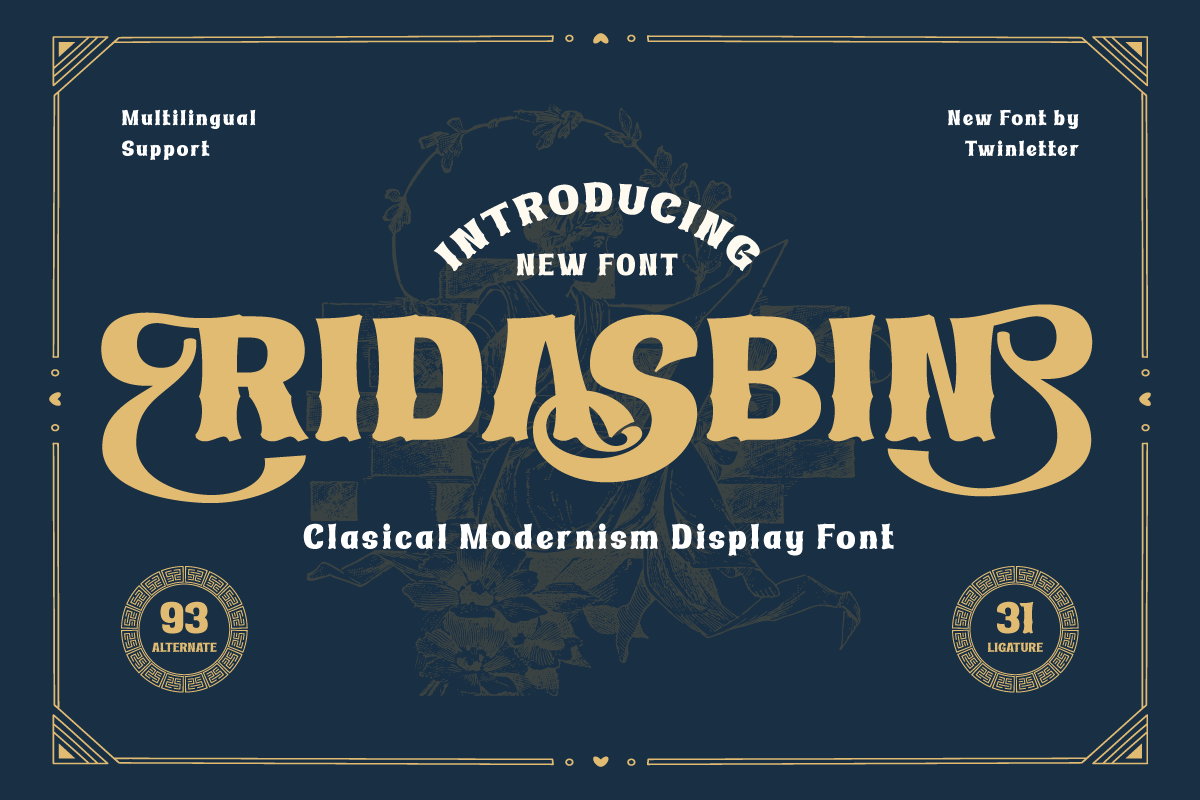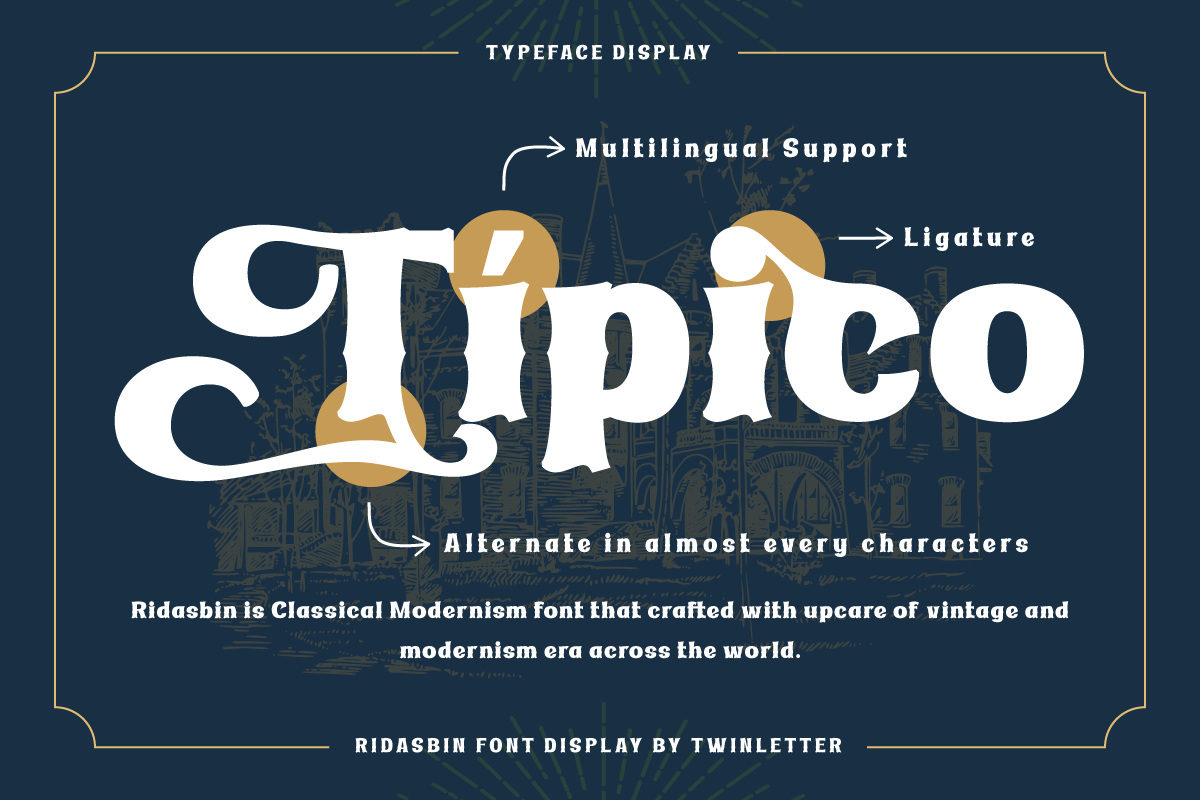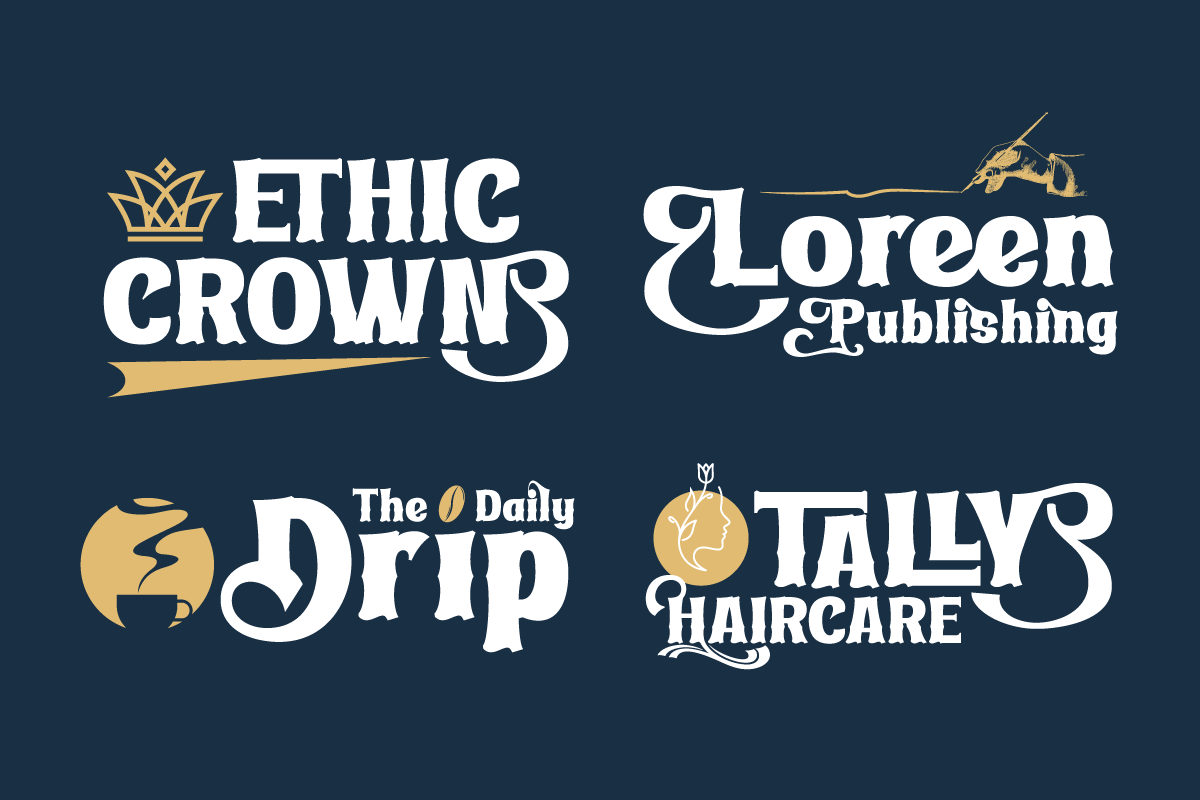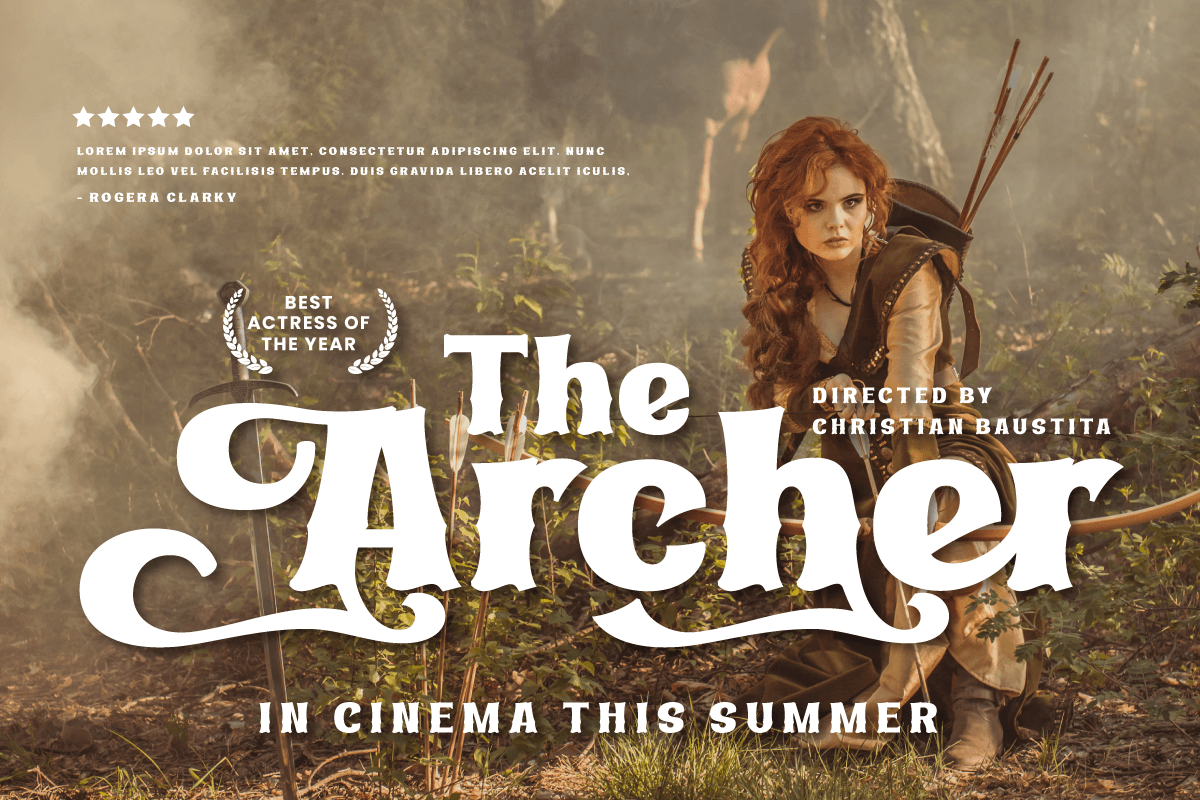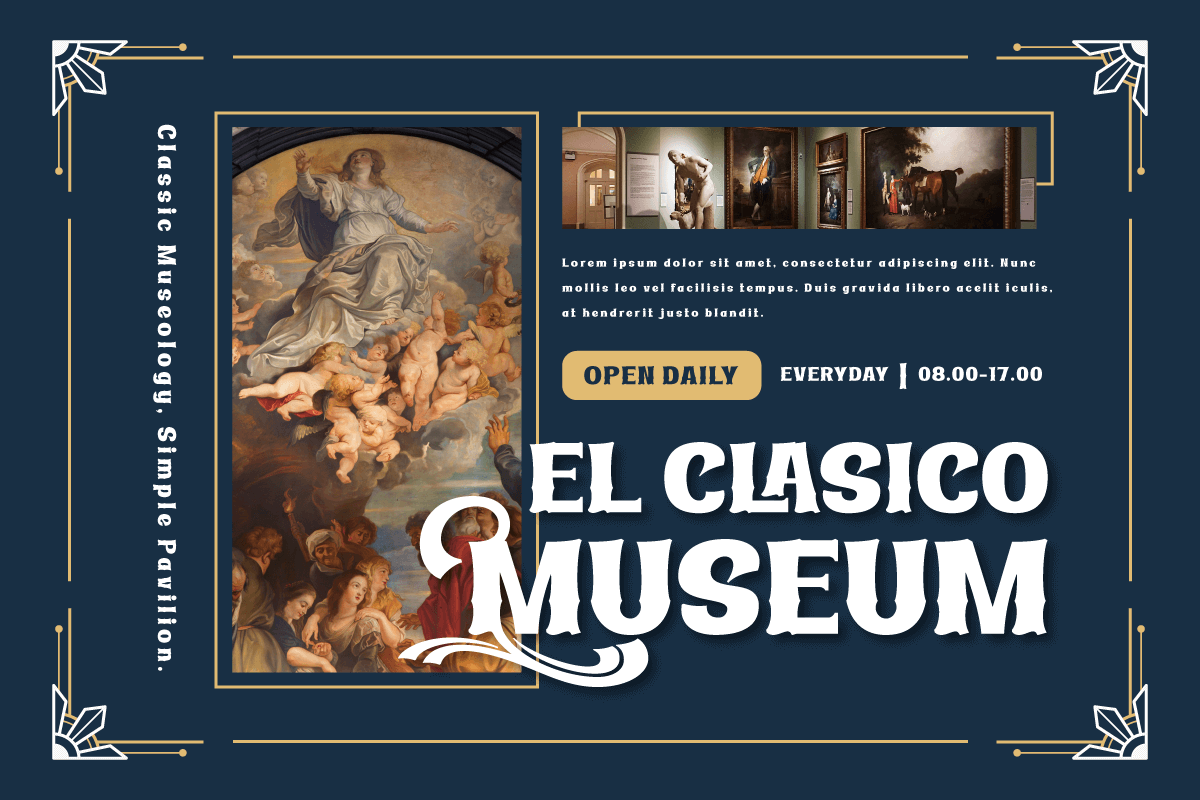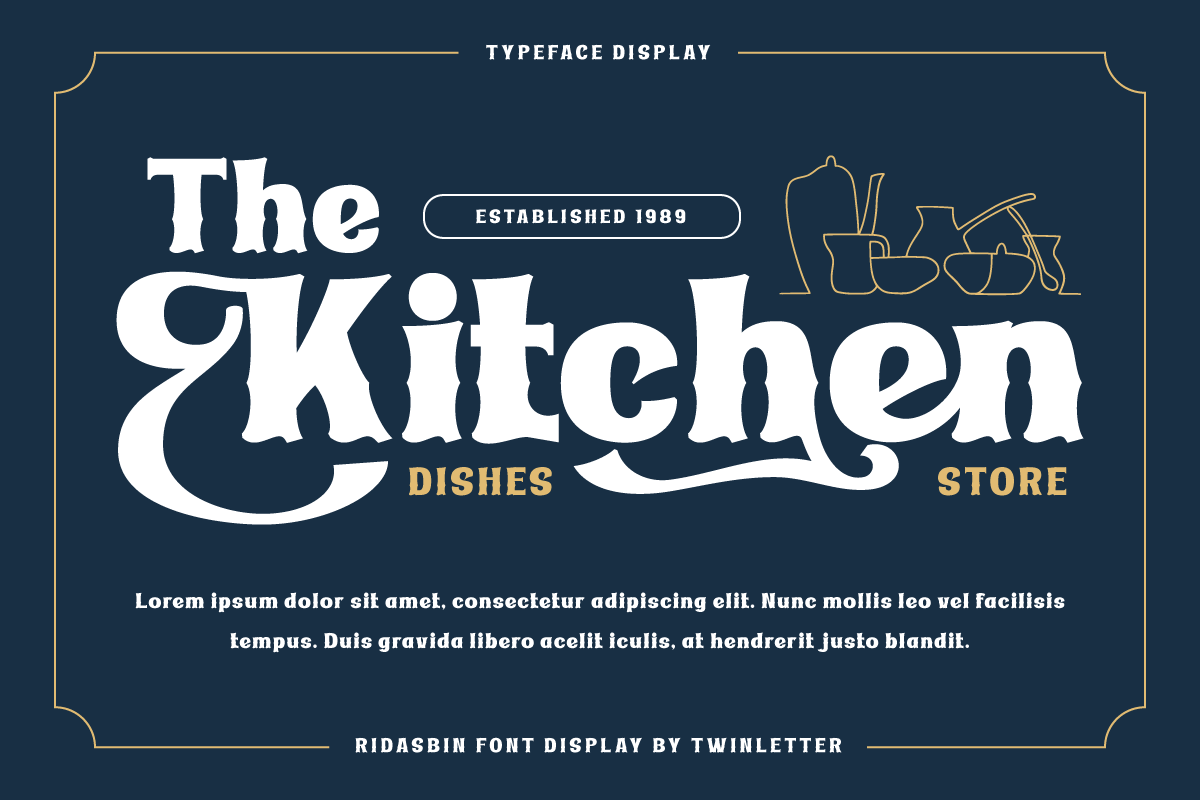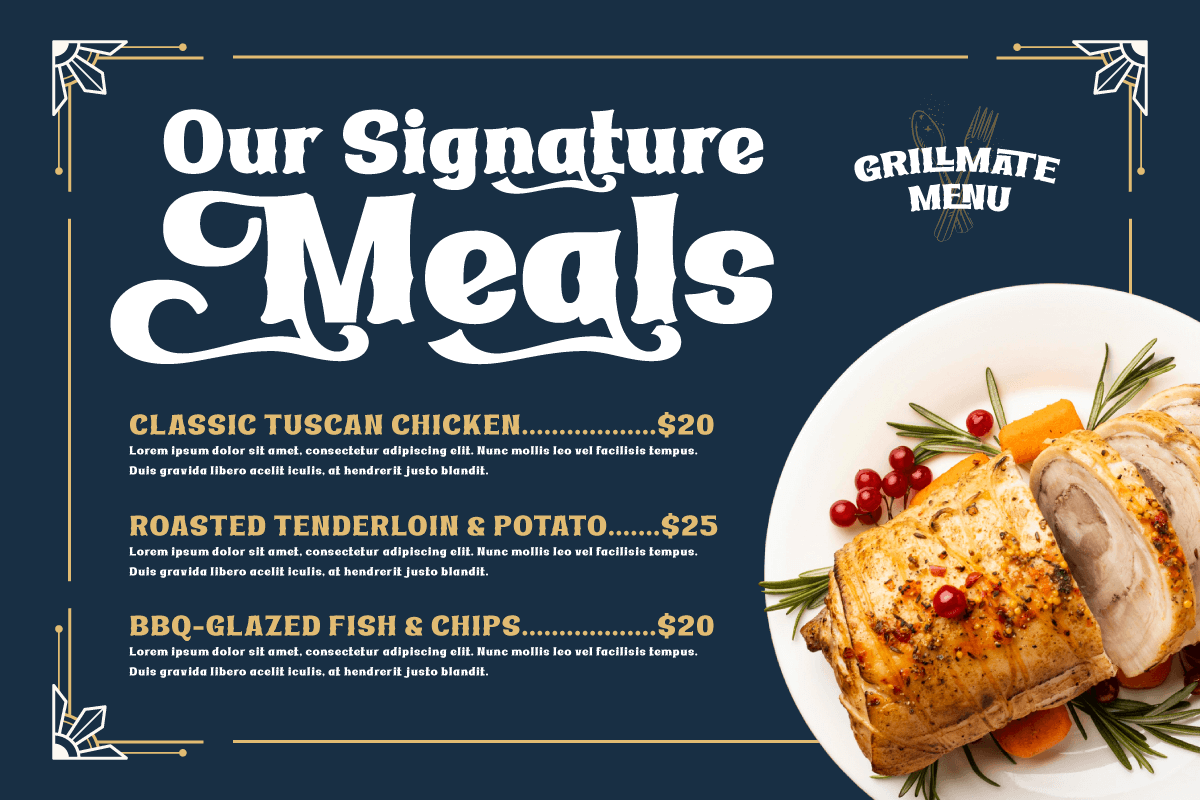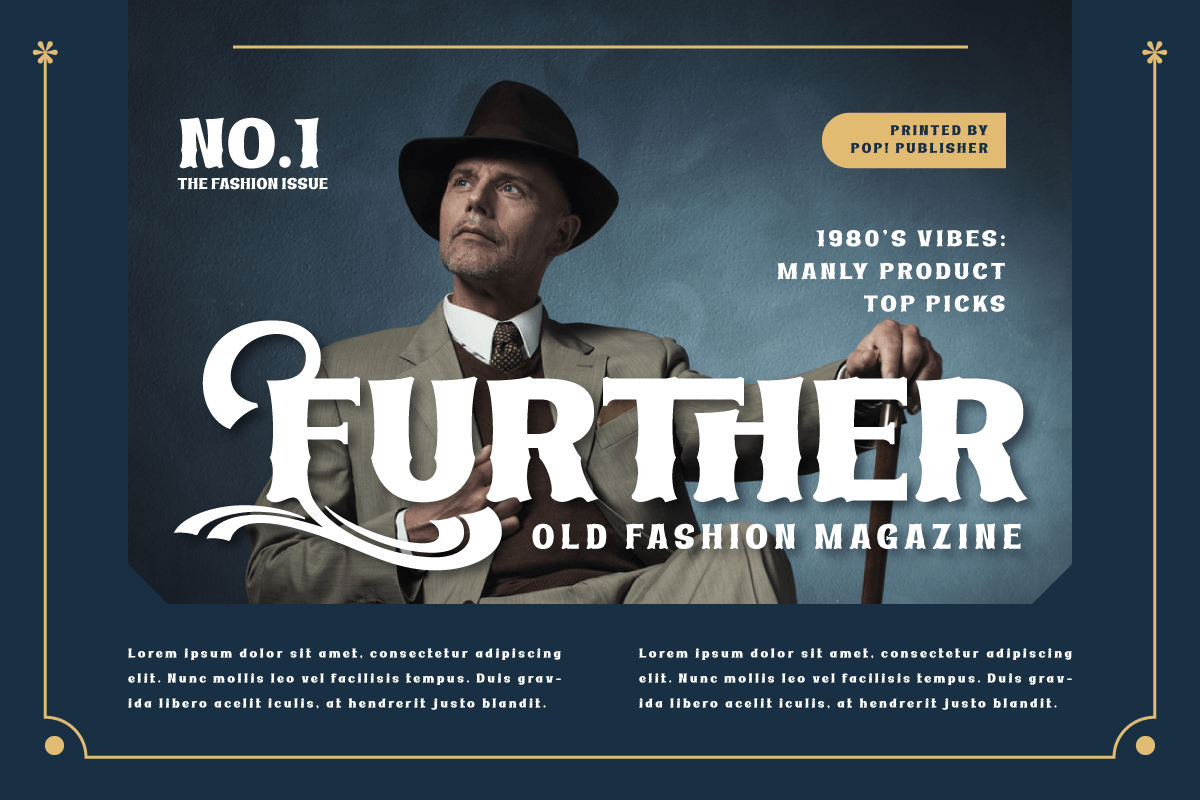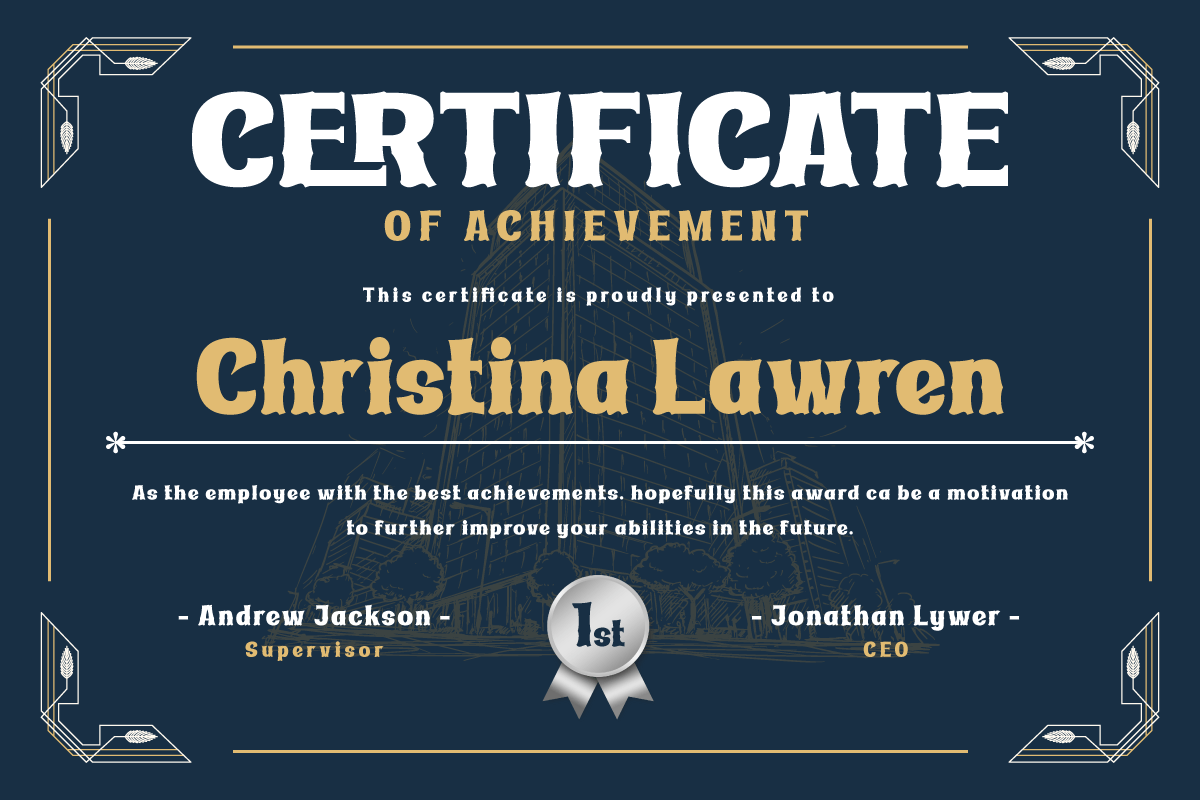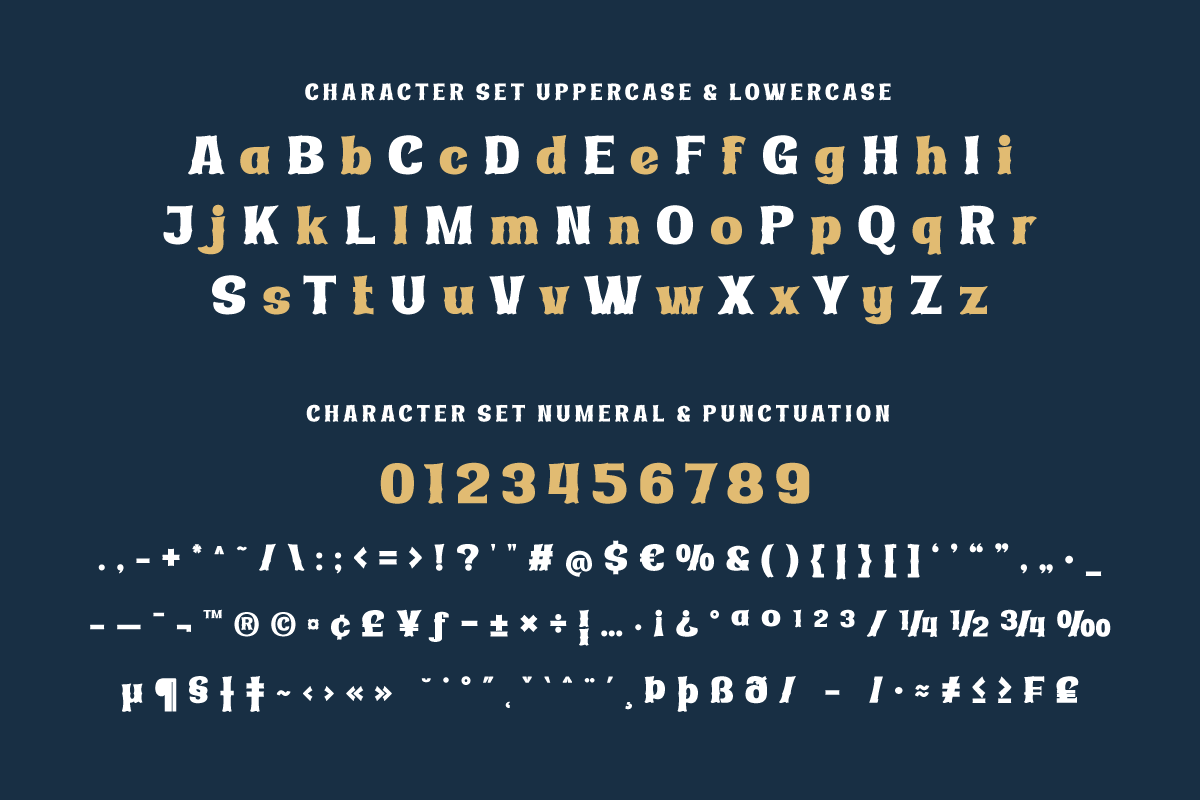
5. Ridasbin | Serif Classic Modernism
Ridasbin | Serif Classic Modernism
Say hello to Ridasbin, a loyal friend in the world of design! With this classic serif font, you can feel the luxury of classic modernism in every project you work on. Whether you are creating posters, brochures, or other designs, Ridasbin will give you an elegant and unforgettable touch. The elegant and classy serif style on Ridasbin will make your designs look professional and classy. Each letter is designed with subtle details and perfect proportions, creating a timeless look. Not only that but Ridasbin is also equipped with special features such as ligatures and alternative characters that allow you to experiment with various interesting letter combinations.
You also don’t need to worry about using various languages, because Ridasbin supports multilingualism. This means you can be creative and reach audiences from all over the world easily.
With Ridasbin, you can present a stunning classic modernism charm in your designs. Display unforgettable elegance and charm, and make a lasting impression on your potential customers. Don’t miss the chance to own this beautiful classic serif font. Get ready for satisfaction and great design results with Ridasbin!